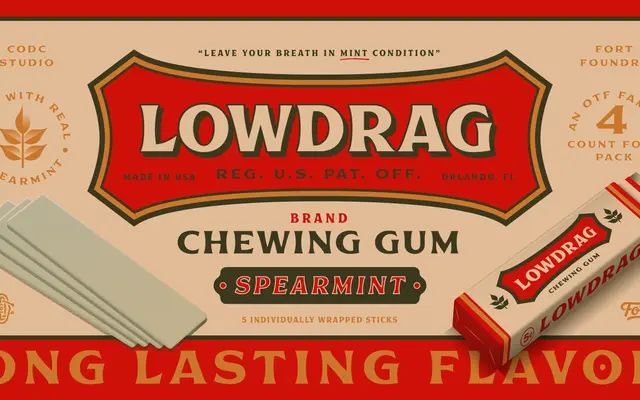
Lowdrag
Fort Foundry · Clark Orr
A display serif with vintage character from Fort Foundry, offered in four widths from Narrow to Extended.
Designed by Clark Orr with design contributions from Mattox Shuler, Lowdrag is a display serif that leans on vintage charm and idiosyncratic detail. Four width variants, from Narrow to Extended, make it adaptable across headlines, labels and poster work. OpenType features include lowercase alternates, stylistic alternates and extra symbols, backed by broad Latin extended language coverage.
Categorised as serif by the foundry; the vintage, quirky character and range of width variants (Narrow through Extended) suggest a display-oriented serif designed for headlines and expressive use rather than body text.